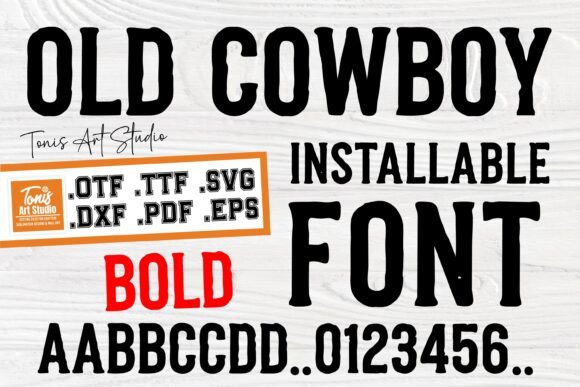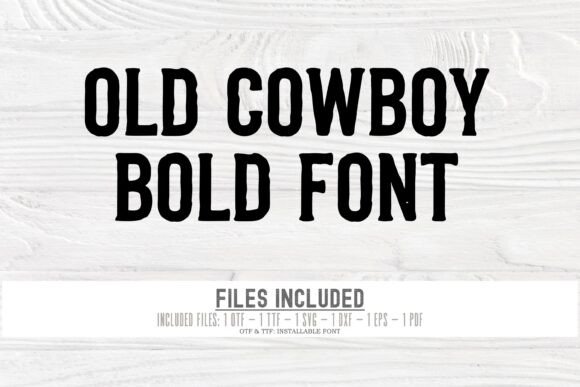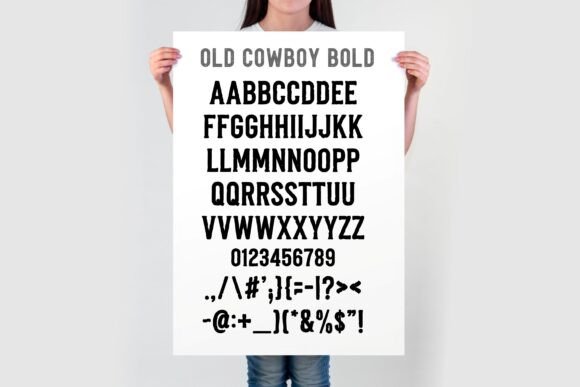
Old Cowboy Bold Font
About the Old Cowboy Bold Font
The wait is over! The incredible Old Cowboy Bold Font is now available for your design toolkit. Invoke the robust spirit of the Wild West directly into your creative endeavors, with the “Old Cowboy Bold” font. This typeface, seeped in Western allure, has been engineered for intensity, leaving an indelible mark on every design. The font’s thick, untamed characters echo the relentless strength and unabridged grit of the frontier’s rugged terrain. An exemplary choice for posters, logos, or t-shirts requiring a potent, authentic touch of yesteryear. Delivered in OTF and TTF formats, it also boasts compatibility with popular crafting tools such as Cricut and Silhouette thanks to its included cut files (SVG, DXF, PDF, EPS). Immerse your design in a thrilling and daring Western narrative with “Old Cowboy Bold”.
Old Cowboy Bold Font Usage Examples
Old Cowboy Bold Font Example